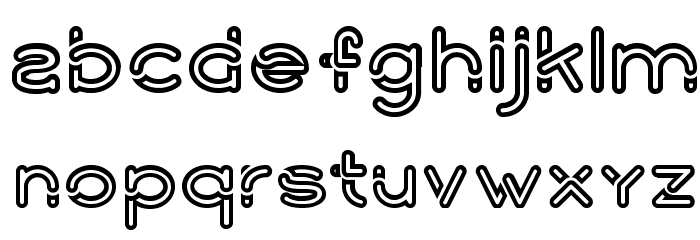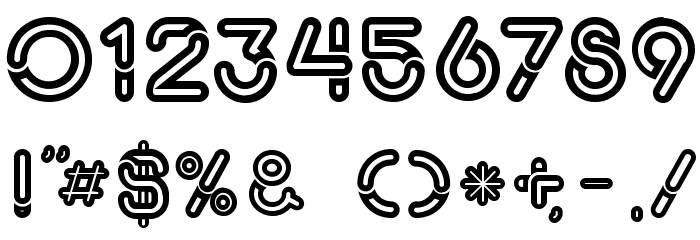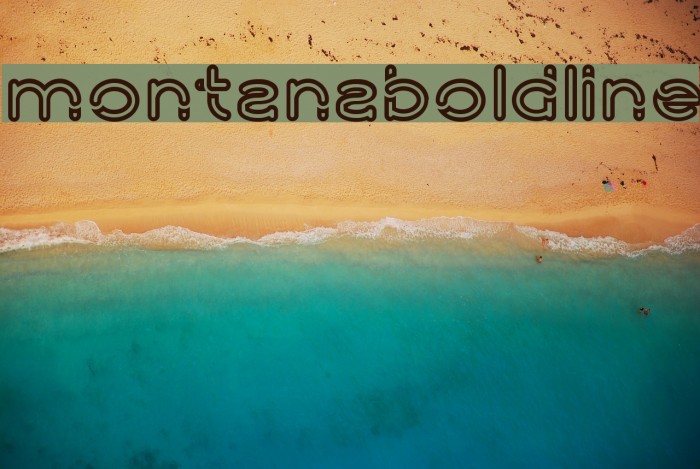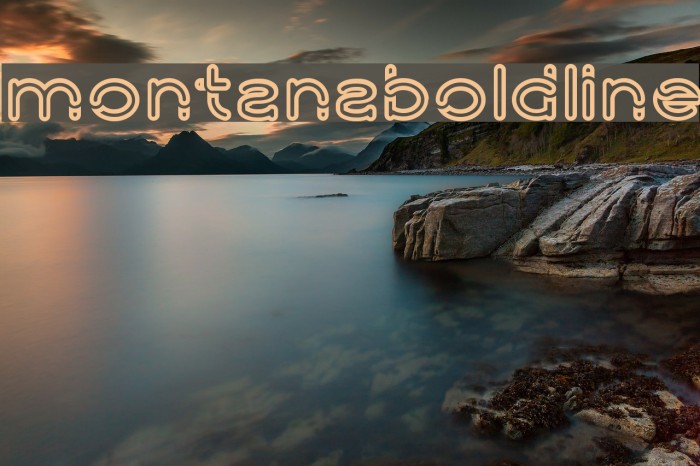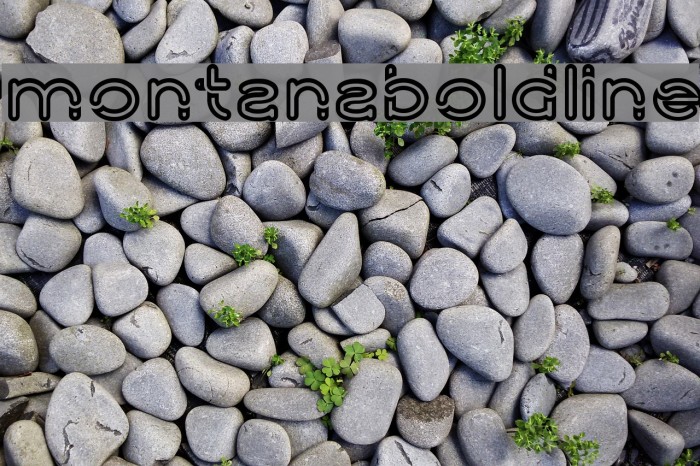
montanaboldline Font
This font features a bold, outlined style with a modern and playful aesthetic. The characters are constructed with a double-line effect, creating a hollow appearance that adds depth and visual interest. The uppercase and lowercase letters maintain a consistent width and height, providing a uniform look across the alphabet. The numbers and special characters follow the same design principles, ensuring cohesion throughout the font. This style is eye-catching and ideal for projects that require a contemporary and fun vibe.
A bold, outlined font with a modern, playful style.
- Proposed Projects: Ideal for branding, posters, headlines, and any design that requires a bold, modern look.